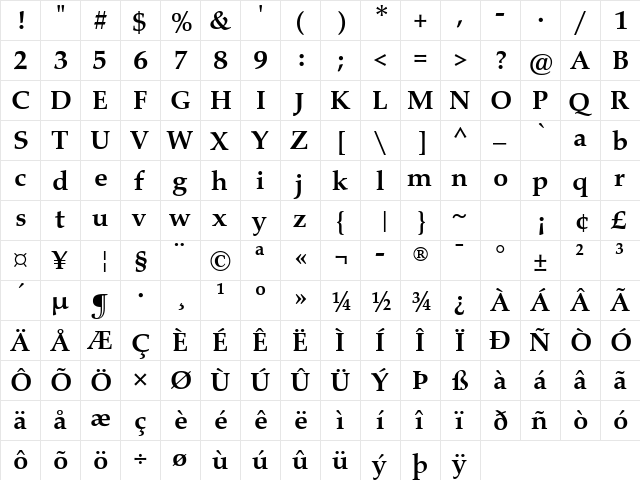
Palatino eText Bold
| Foundry | Linotype GmbH |
| Designer | Hermann Zapf and Akira Kobayashi |
Design Context for Palatino eText Typeface
Palatino eText takes a measured approach to typography — its balanced proportions and neutral character make it a reliable workhorse for both digital and print work. The heavy weight commands attention and anchors typographic hierarchies.